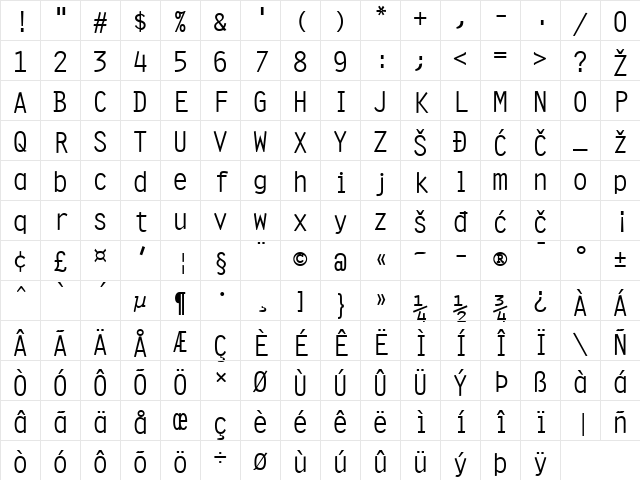
Orator10 Regular
Design Context for Orator10
Orator10 is a composed and adaptable typeface that performs quietly and consistently across a wide range of design contexts.